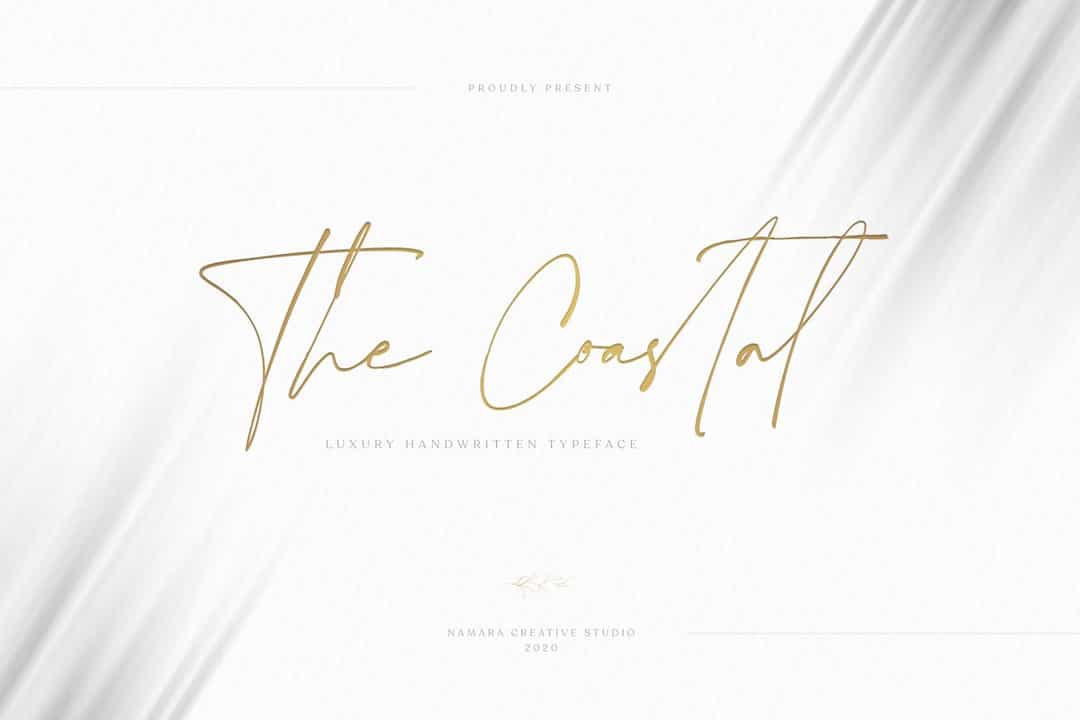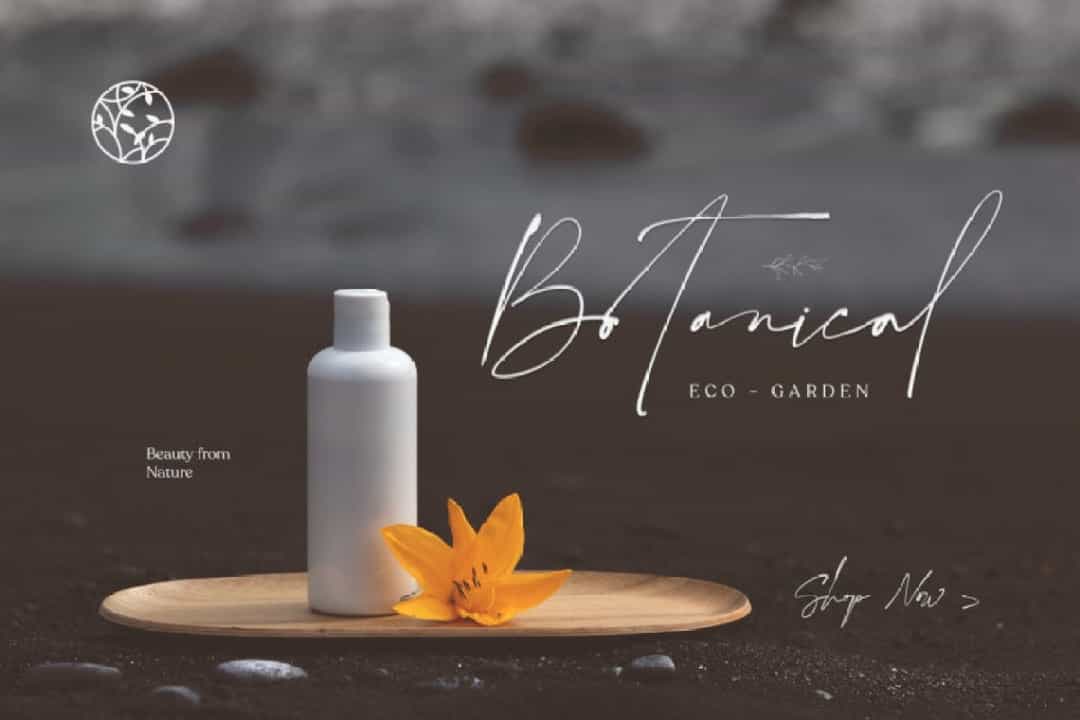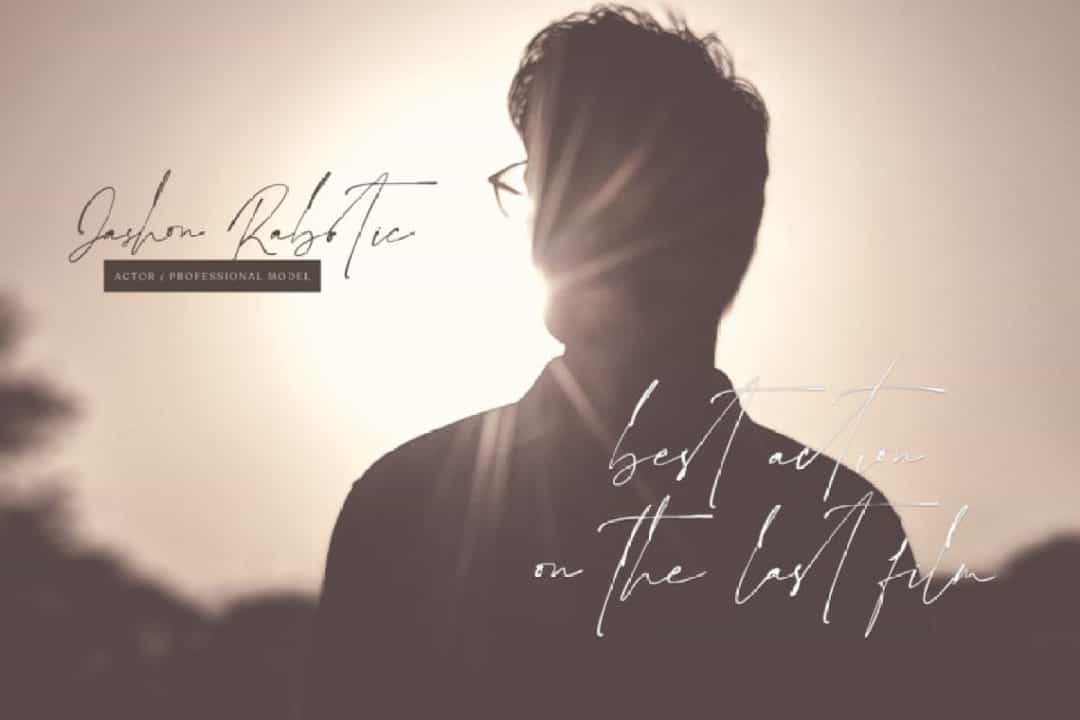
Coastal is a beautiful handwritten script font that has natural characteristics associated with handwriting. It also has numeral in both lower and upper case formats, other characters such as punctuations, letters, and their stylistic variants, ligatures, and supports for multiple languages.